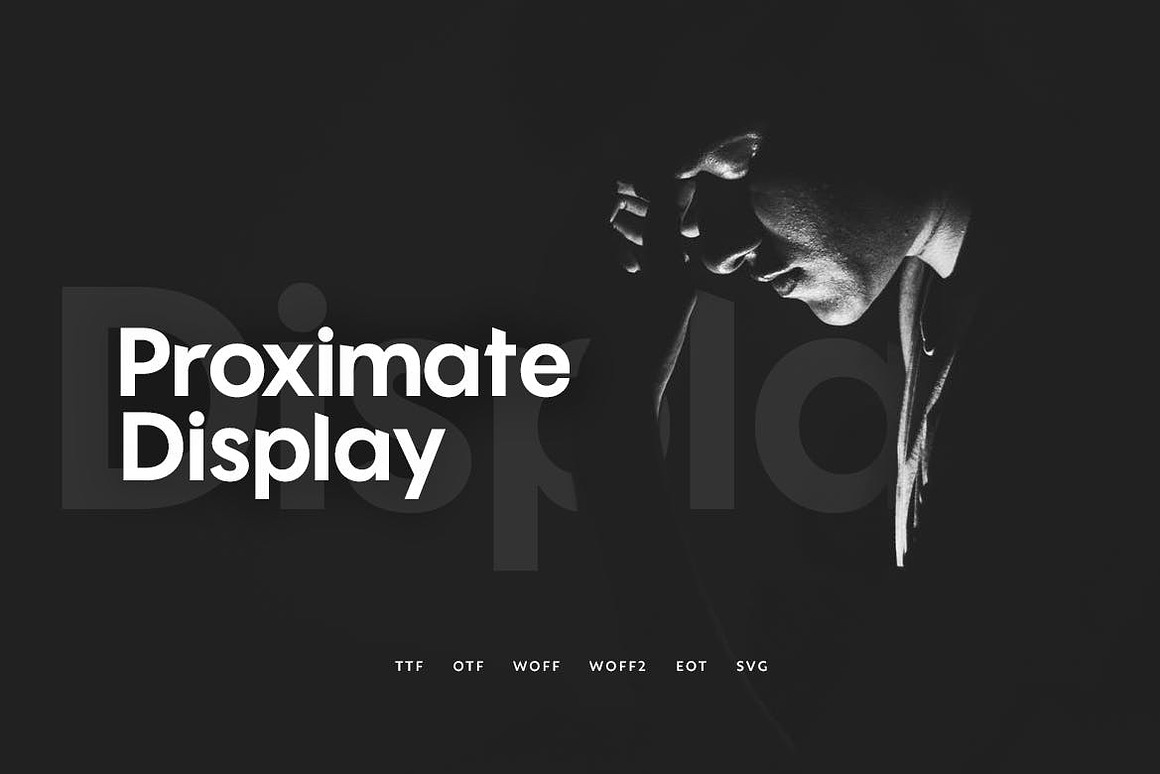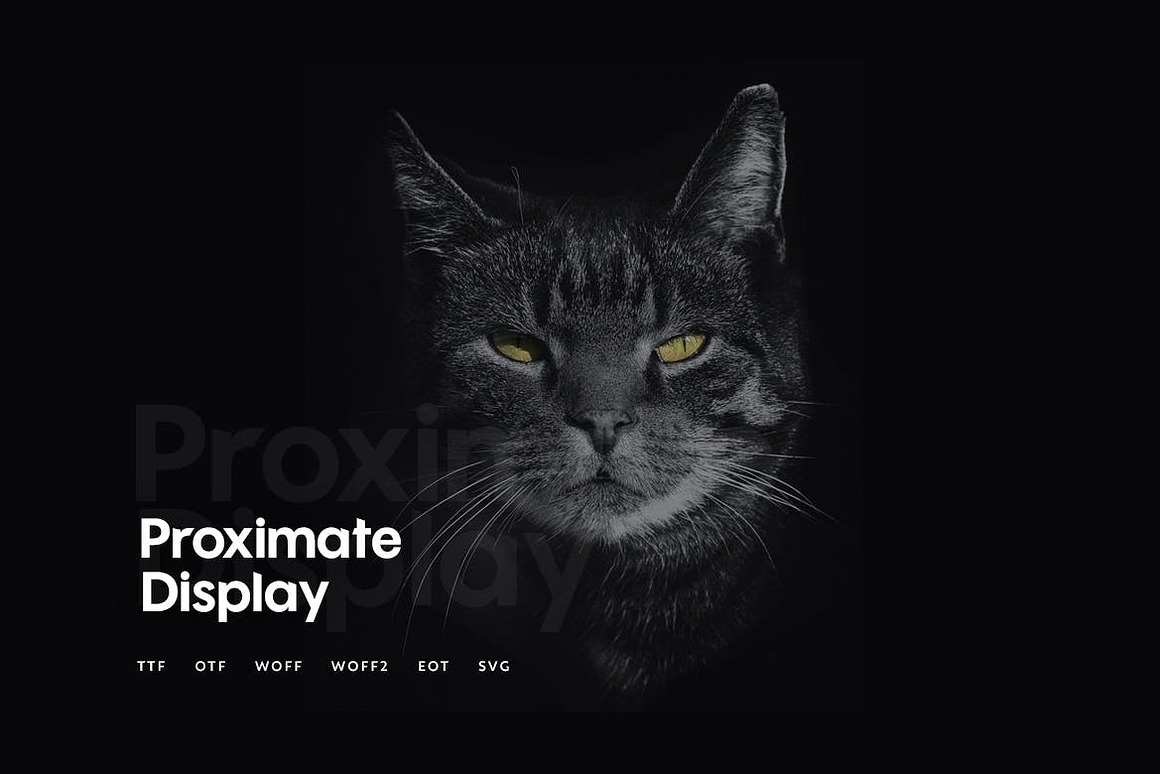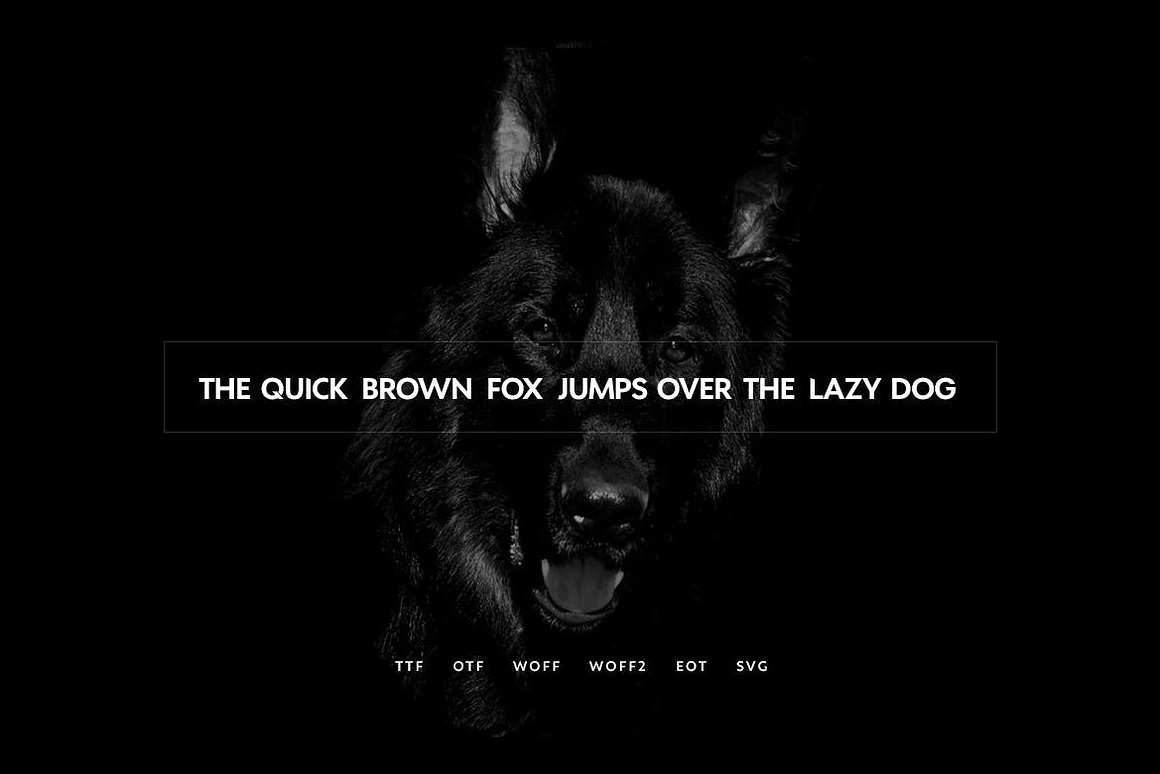
Proximate - Modern Typeface
Proximate Modern Typeface is perfect for tech startups, corporate branding, minimalist logos, contemporary web design, architectural presentations, modern magazines, clean app interfaces, professional business cards, sleek marketing materials, and sophisticated digital platforms.
What makes Proximate Modern Typeface so exciting is its cutting-edge design philosophy that perfectly captures the essence of contemporary digital aesthetics while maintaining exceptional functionality across all platforms. This forward-thinking typeface represents the evolution of modern typography for the digital age.
The Proximate Modern Typeface family includes thin, light, regular, medium, bold, and black weights, complete with matching italics and condensed variations, providing designers with a comprehensive typographic system for any modern design challenge.
Step into the future of typography with Proximate Modern Typeface Free Download, a meticulously engineered font that defines excellence in contemporary design. This exceptional typeface embodies the principles of modern minimalism while delivering maximum impact and superior readability across all digital and print applications.
The precisely crafted letterforms of Proximate Modern Typeface feature clean geometric construction with subtle humanist touches that create perfect harmony between technological precision and organic warmth. Each character has been optimized for both screen and print performance, ensuring consistent quality and legibility at any size or resolution. The font's balanced proportions and generous spacing contribute to excellent readability and professional appearance.
Leading design agencies and tech companies worldwide trust Proximate Modern Typeface for projects demanding contemporary sophistication and technical excellence. The extensive character set includes Latin extended glyphs, comprehensive punctuation, mathematical symbols, currency signs, and OpenType features that provide complete support for international projects and complex typographic requirements.
The technical superiority of Proximate Modern Typeface ensures flawless performance across all platforms and applications. Whether developing responsive websites, creating corporate identity systems, or designing cutting-edge mobile applications, this remarkable typeface delivers the reliability and visual impact that modern brands require to succeed in competitive markets.